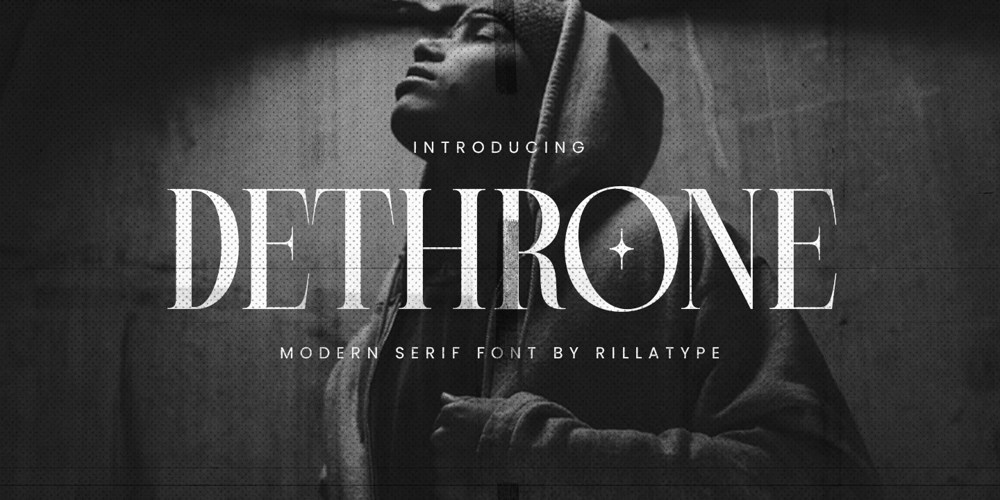
Dethrone
Dethrone font
Dethrone Font Family was designed by Gustian Agung Asprilla and published by Rillatype. Dethrone contains 2 styles and family package options. Introducing, Dethrone! Dethrone is a modern serif font that bring you clean and sharp feels. this font also comes with lowercase, ligatures, and multi lingual support. Dethrone is perfect for your branding project, headline, logotype, packaging, invitation, advertising, etc.I hope you enjoy the font, if you have any question please feel free to contact me at rillatype@gmail.comThank You!